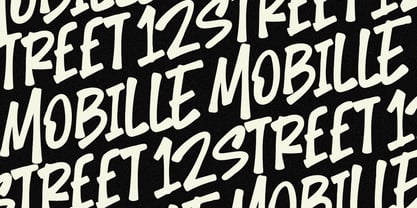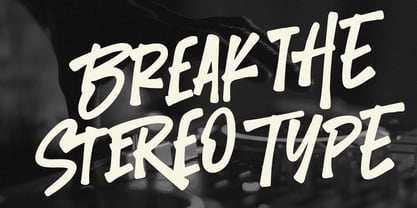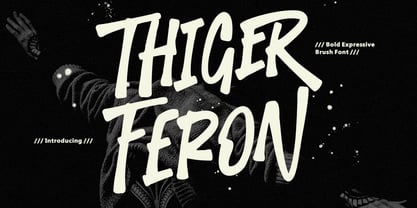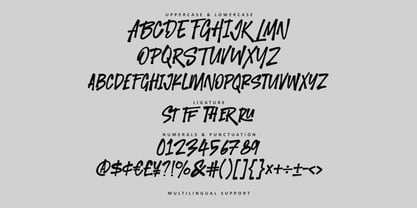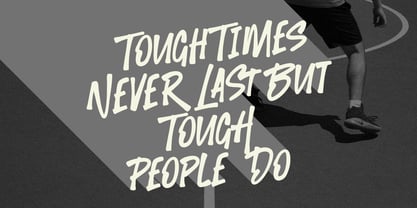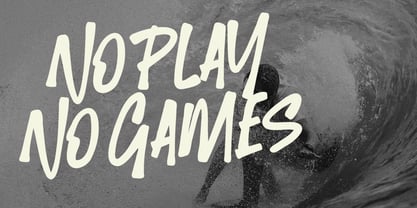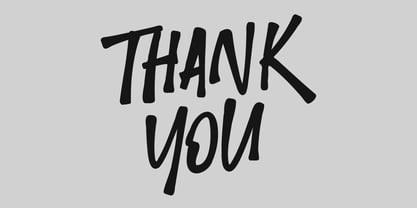
MC Thiger Feron
by Maulana Creative
The MC Thiger Feron Font Family was designed by Gilang Maulana and published by Maulana Creative. MC Thiger Feron contains 1 styles. More about this family
Thiger Feron is a dynamic, bold, and unapologetically expressive brush font designed to make your projects scream with personality. With its aggressive strokes, raw energy, and naturally flowing lines, Thiger Feron captures the authentic feel of hand painted lettering. Bold and Energetic, the powerful, slanted letterforms command attention and inject an immediate sense of adrenaline into any design. Authentic Brush Texture, crafted to maintain the gritty, imperfect charm of a real paintbrush, giving your work a genuine, hand crafted touch. Versatile Impact, perfect for a wide range of high impact applications, including music and entertainment, branding, action sports and extreme events. Elevate your design game from mundane to magnificent. If you need a font that embodies passion, speed, and raw emotion, Thiger Feron is your definitive choice. Download it today and watch your designs come alive.
Designers: Gilang Maulana
Foundry: Maulana Creative